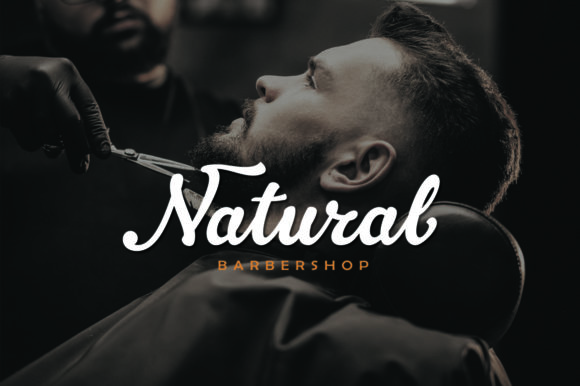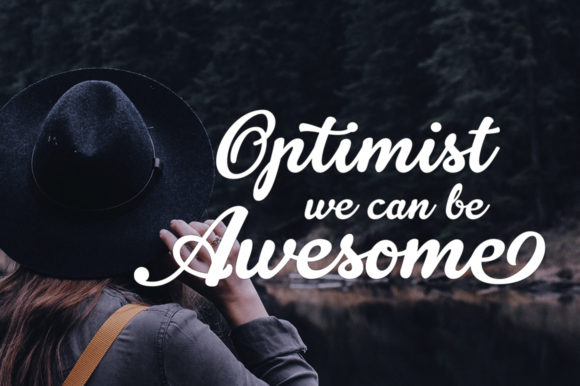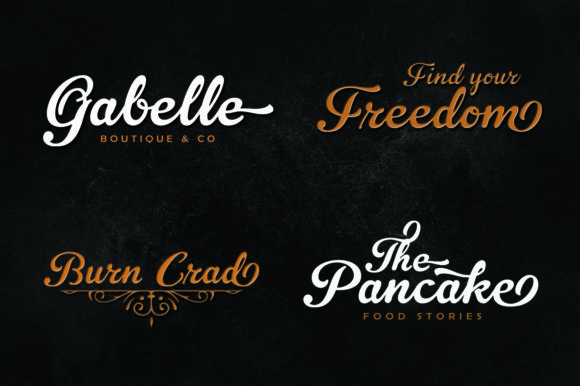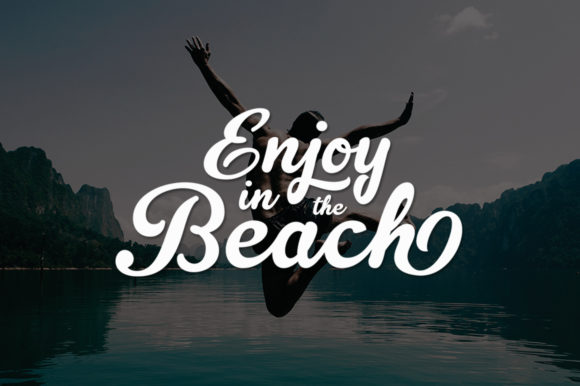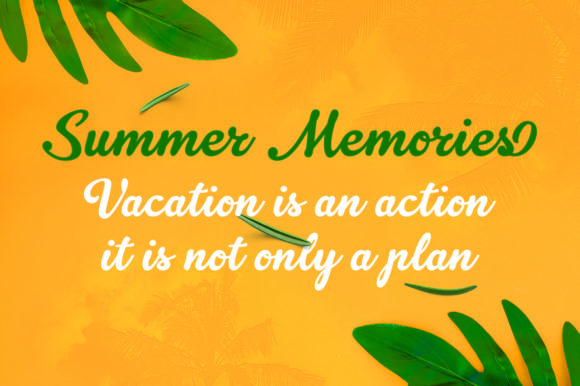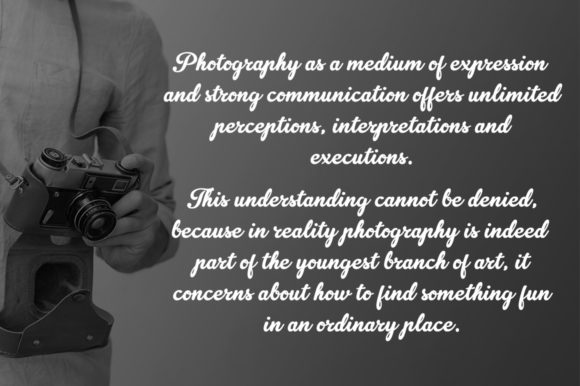
Introduction to Oraghon Font
Do you remember the moment when you stumbled upon the perfect font for your creative project? The one that made your design come alive and captured the essence of your idea? For me, that moment was when I discovered the Oraghon Font. Its beautiful handwritten style, crafted with a gorgeous brush pen, immediately caught my attention and made me fall in love.
As a designer, finding the right font can be a game-changer. It’s what sets your design apart from the rest and makes it truly special. And that’s exactly what the Oraghon Font offers – a high-quality, versatile style that’s perfect for a wide range of creative projects, from wedding invitations to social media posts.
With its PUA encoded features, you can access all the glyphs and swashes with ease, giving you endless possibilities for customization. Whether you’re working on a free download or a paid project, the Oraghon Font is a valuable design resource that’s sure to elevate your designs to the next level.
Key Features of Oraghon Font
- Includes multiple font styles, including bold, italic, and regular
- Perfect for designers seeking a unique and stylish design element
Honest Review: Oraghon Font
As a designer, I’ve had the pleasure of working with numerous fonts, but the Oraghon Font has truly caught my attention. I was drawn to its free download feature, which made it an excellent addition to my design resource library.
The Oraghon Font is a high-quality font that exudes elegance and sophistication. Its modern design makes it perfect for creative projects that require a touch of luxury. One of its standout features is the transparent background, which allows for seamless integration with any design element.
Here are some of the things that work well with the Oraghon Font:
- Modern and elegant design
- The font may not be suitable for projects that require bold or playful typography
- The transparent background can sometimes make it difficult to read, especially in low-light conditions
Overall, I’m impressed with the Oraghon Font, and I would highly recommend it to designers who are looking for a high-quality, elegant font for their creative projects.
Tips for Getting the Most Out of Oraghon Font
Experiment with different font combinations to create a unique look. Use the Oraghon Font in conjunction with other design elements, such as images and graphics, to add depth and visual interest to your design. Take advantage of the font’s high-quality design to create stunning visuals.
Common Use Cases for Oraghon Font
The Oraghon Font is ideal for a variety of creative projects, including branding, marketing materials, and digital graphics. Its transparent background makes it perfect for use in logos, icons, and other design elements that require a clean and simple look.